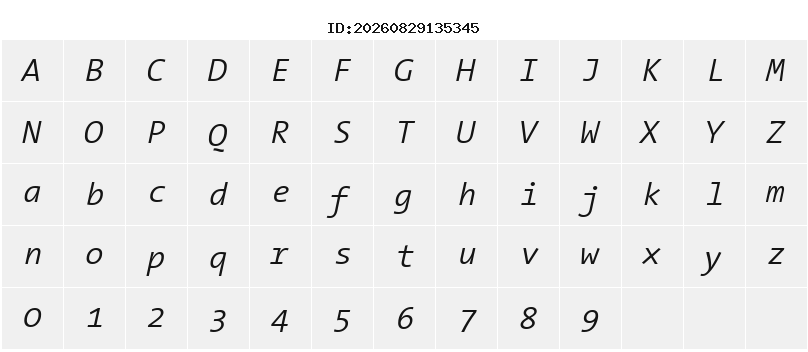
TheSansMono Preview
• Font Name: TheSansMono
• Font Style: SemiLightItalic
• Full Font Name: TheSansMono SemiLightItalic
About TheSansMono.ttf
TheSansMono.ttf is a modern, elegant sans-serif font designed for ultimate readability and visual harmony. Perfect for branding, headlines, web design, and print materials.